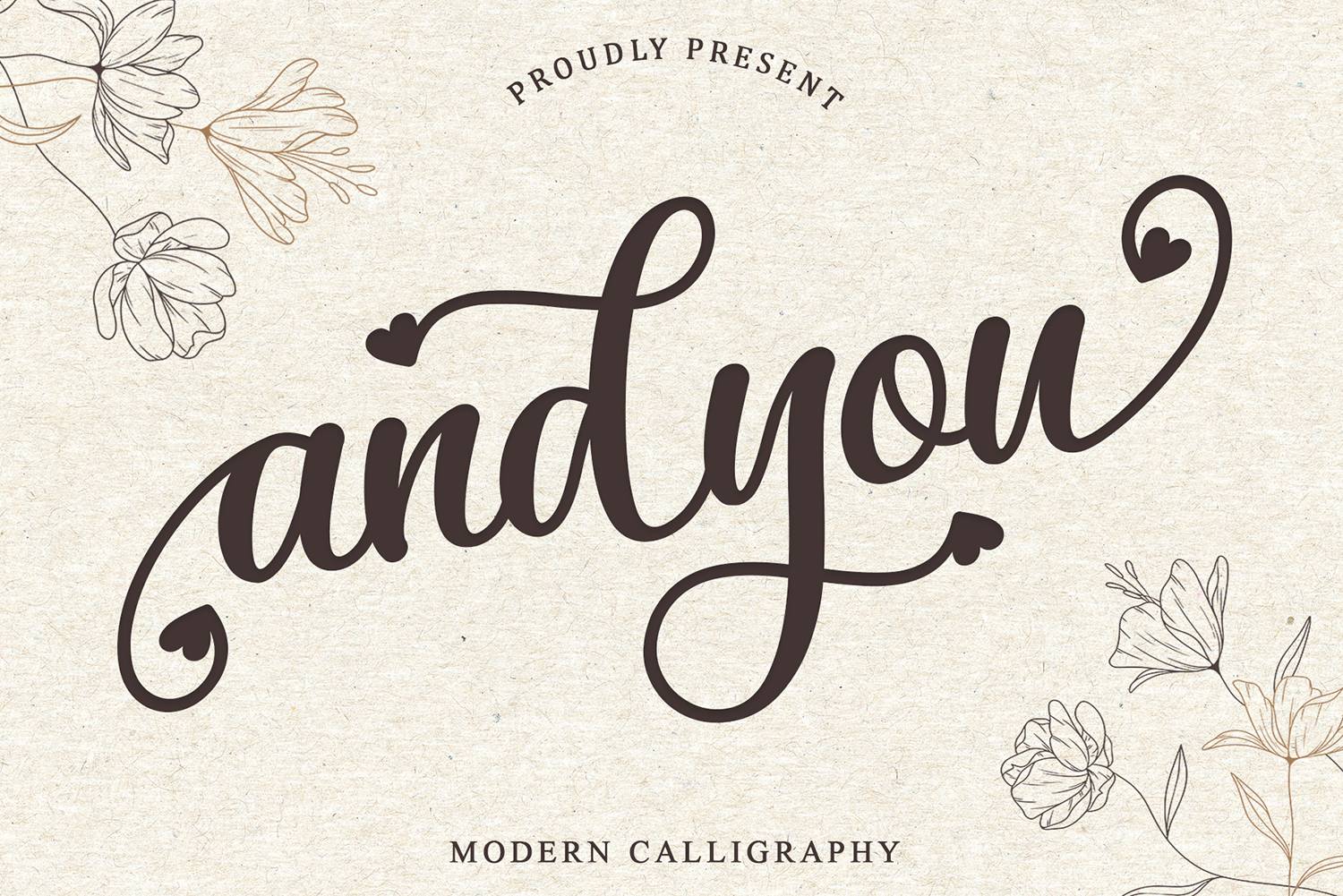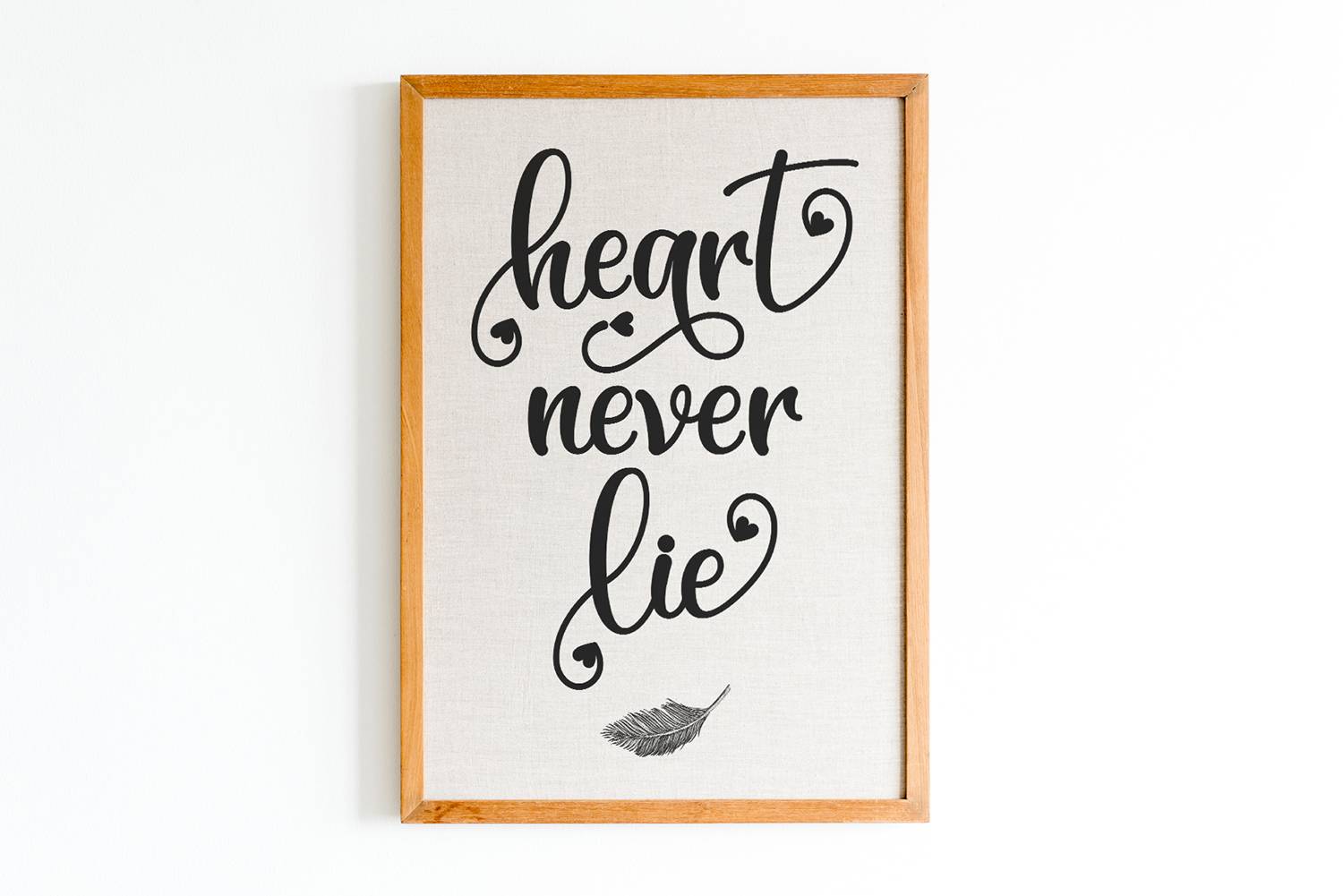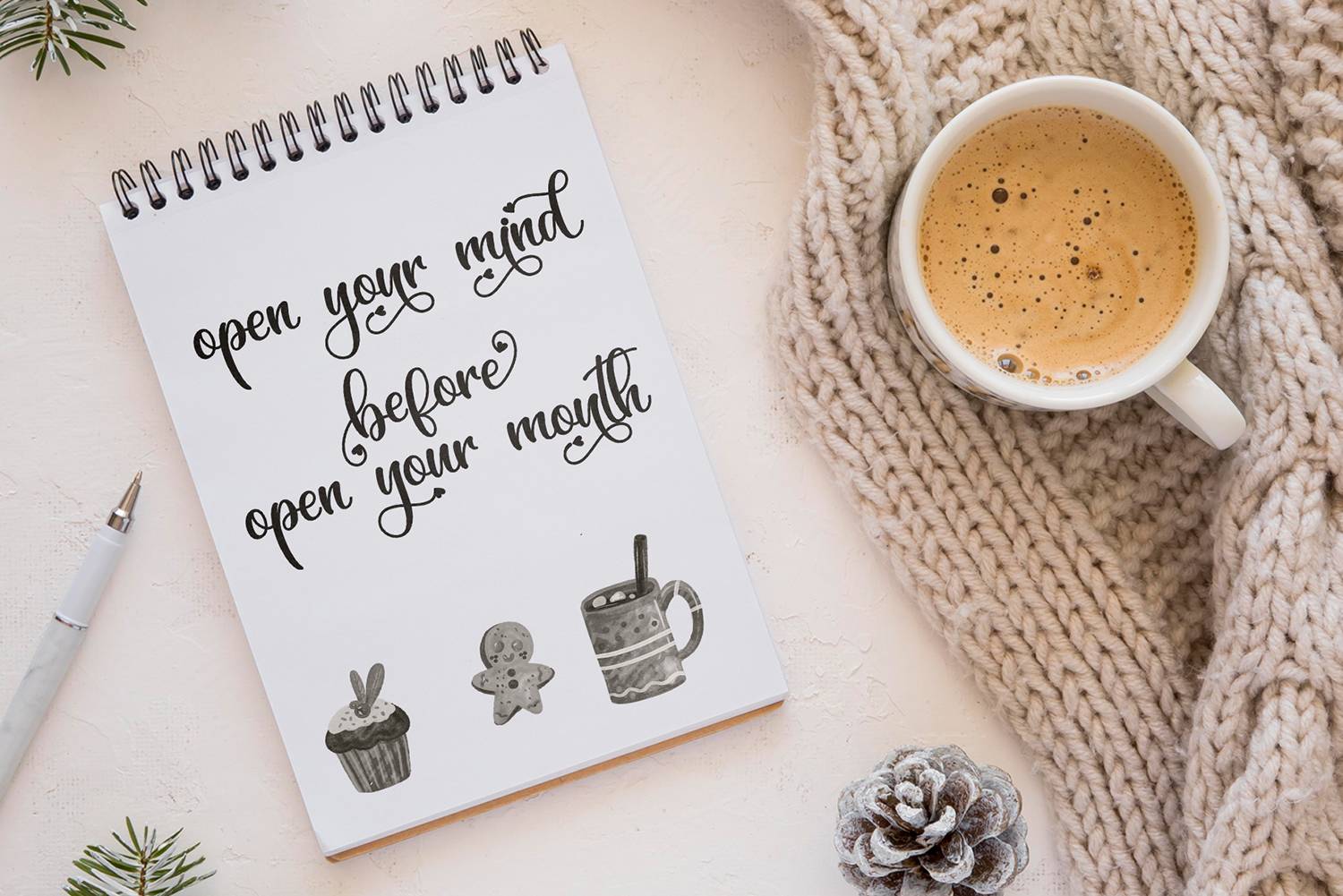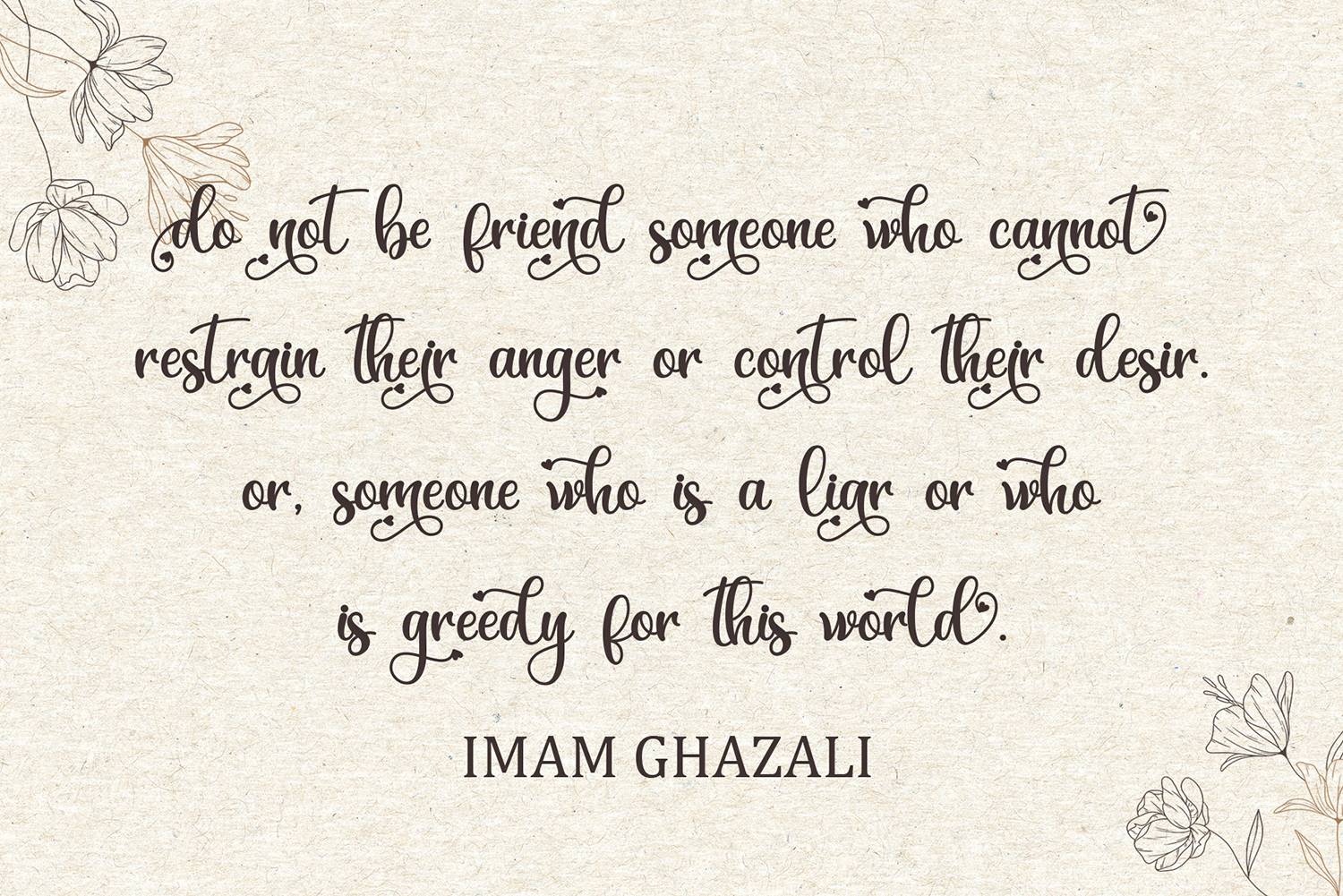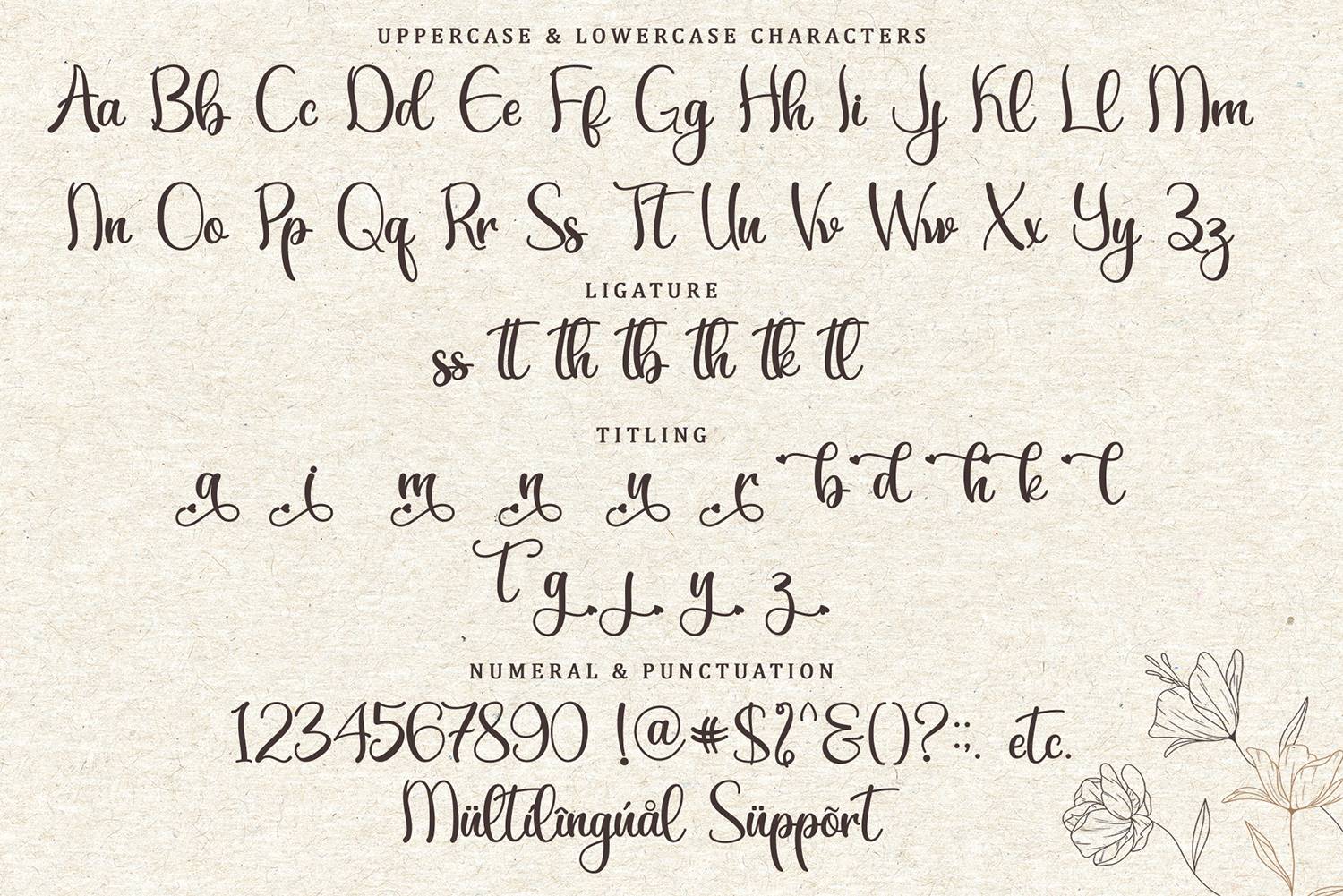
Andyou is a playful and elegant script font with flowing, handwritten letterforms that have a lively and personal touch. Its thin, slightly varied strokes and tall x-height make it perfect for creative uses like invitations, branding, and stylish headlines where a friendly yet refined feel is desired. This font shines in projects that want to convey warmth and individuality with a modern calligraphic flair.
Andyou Font
About Andyou Font